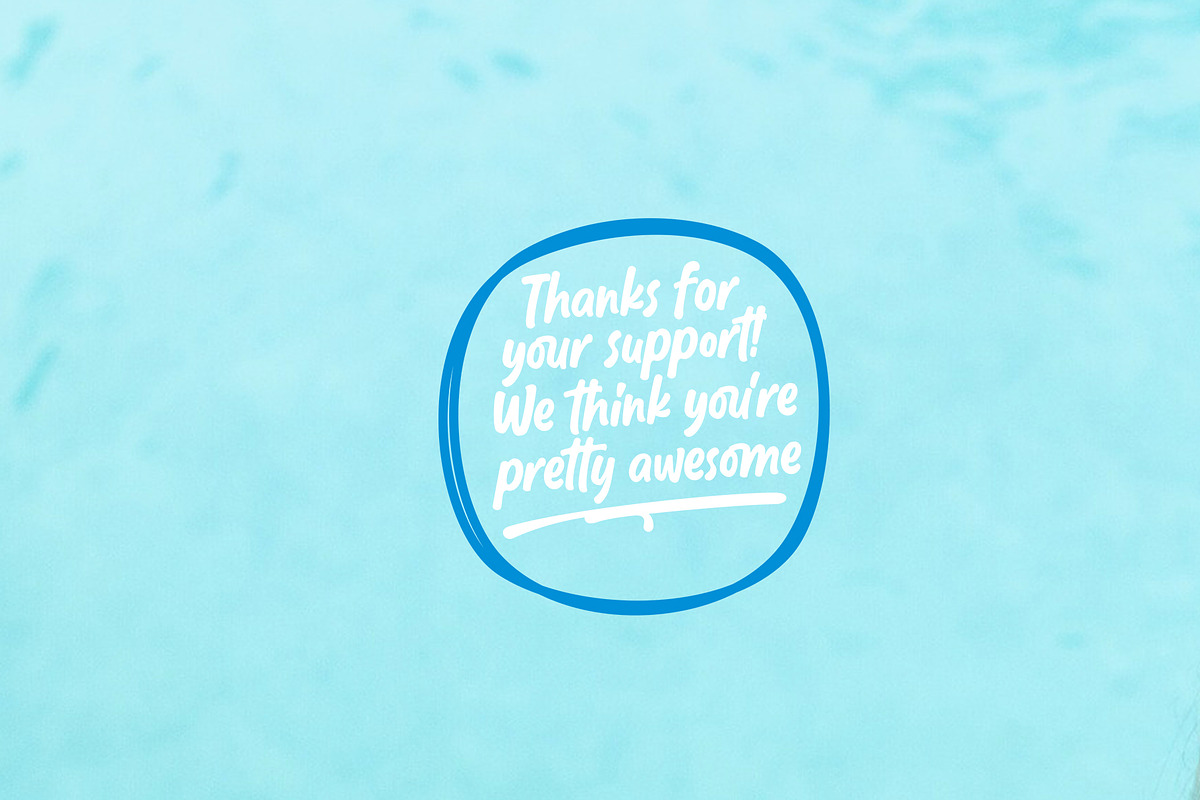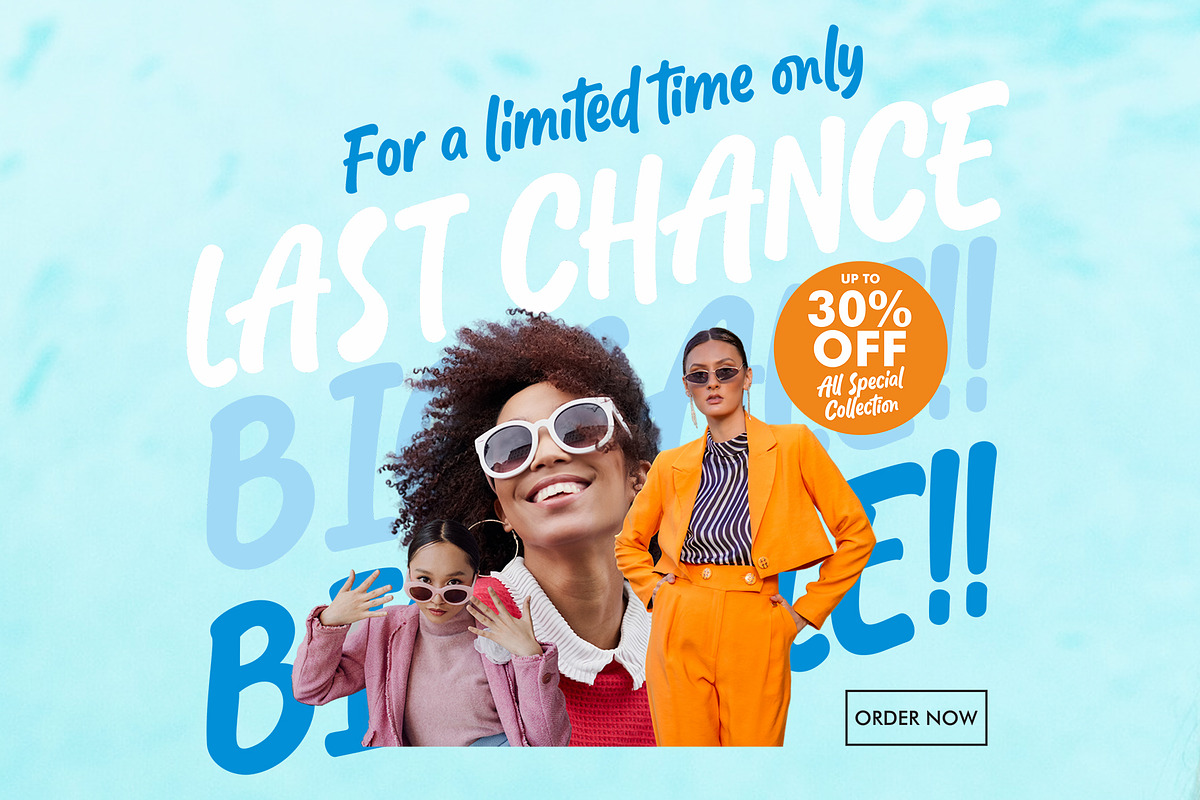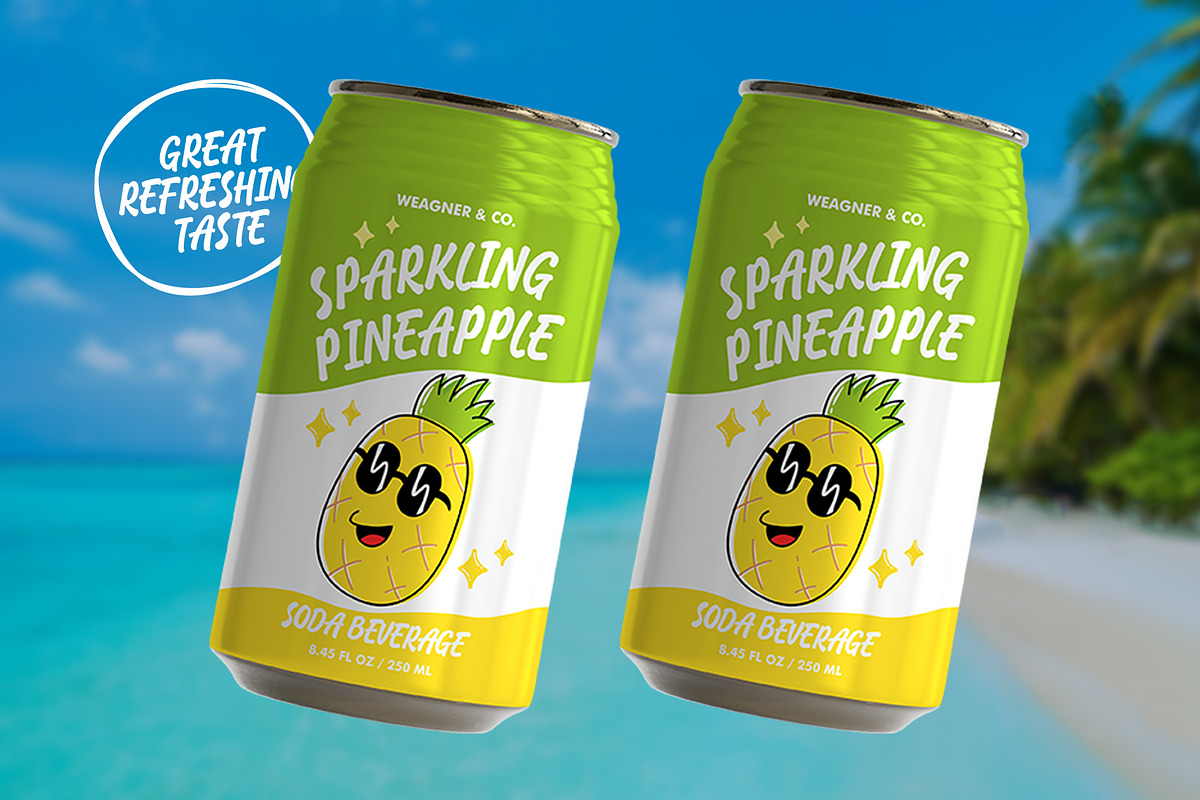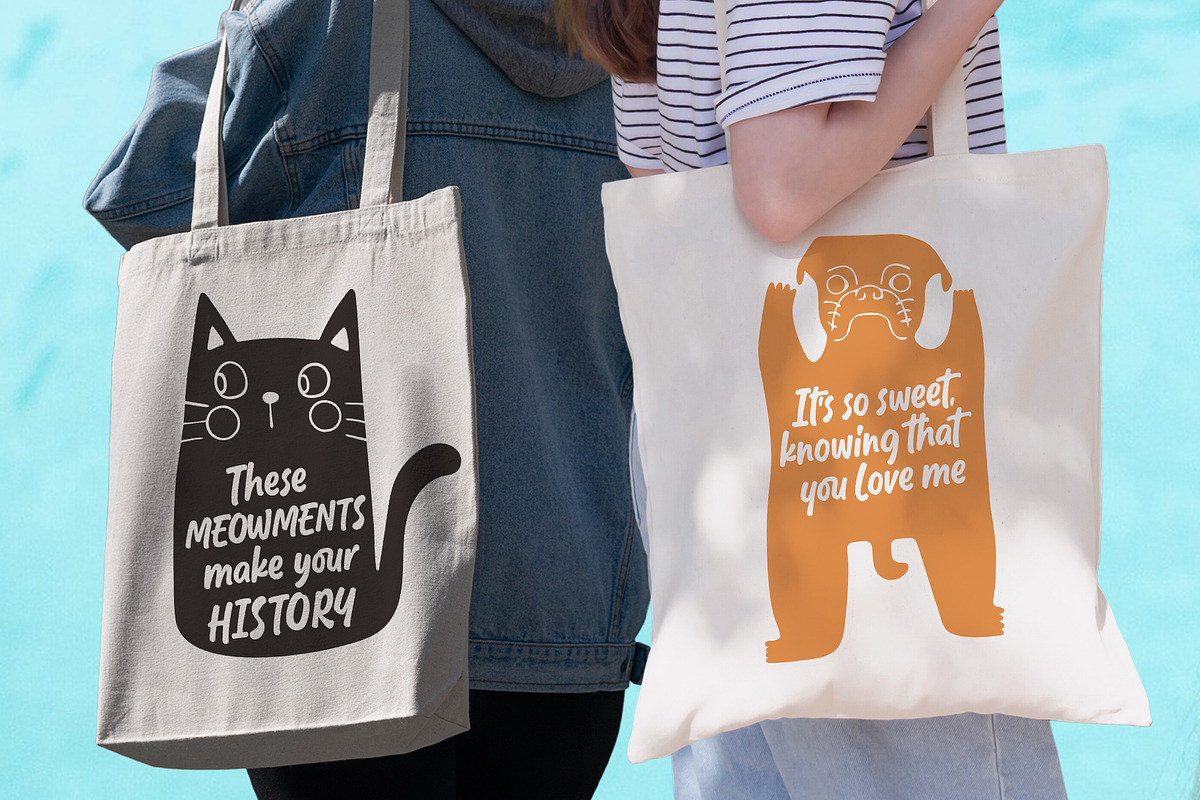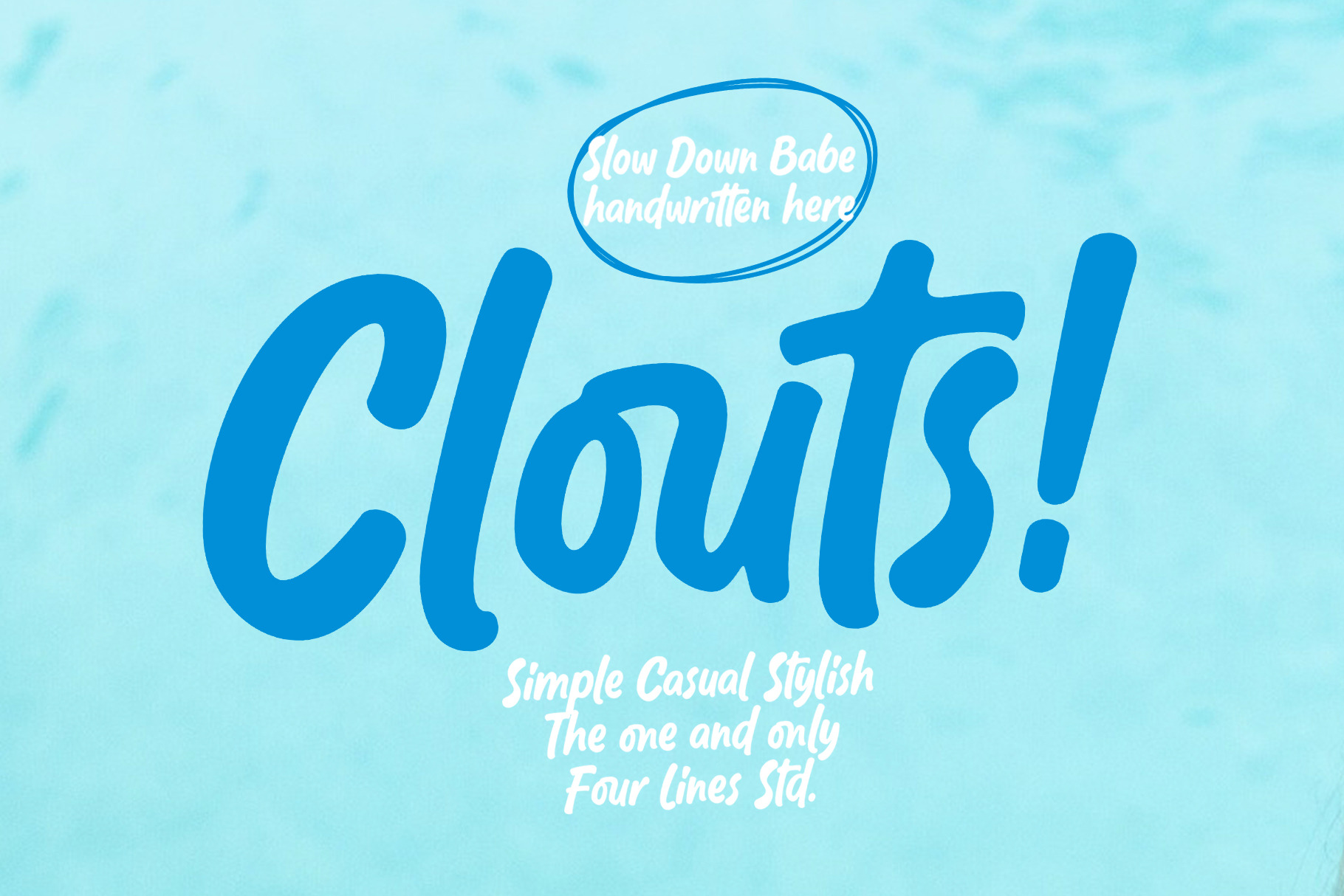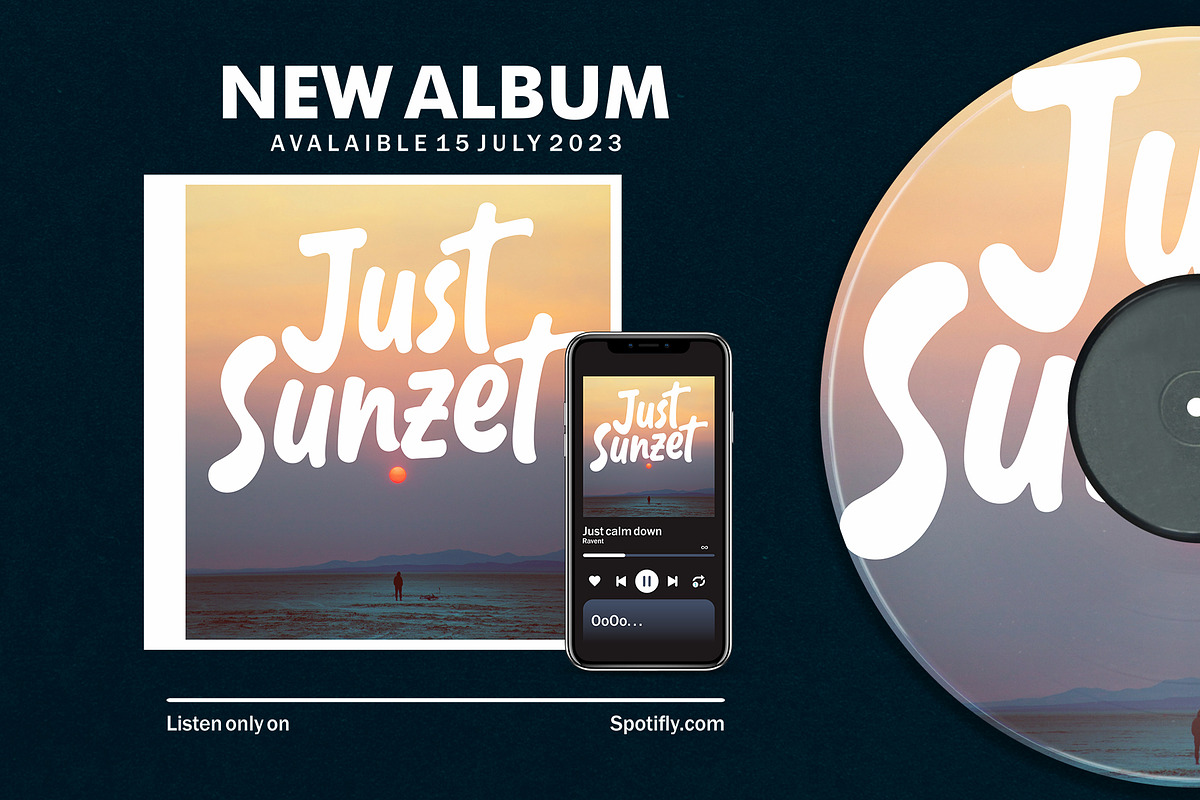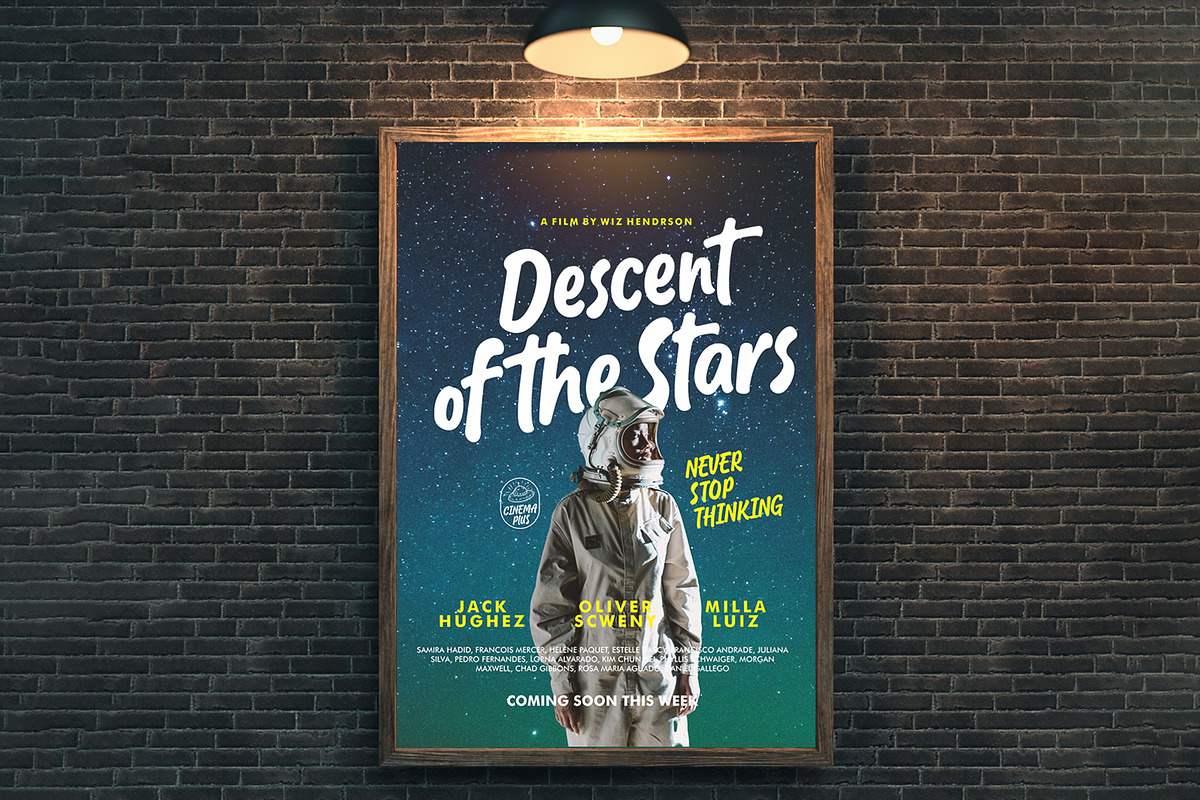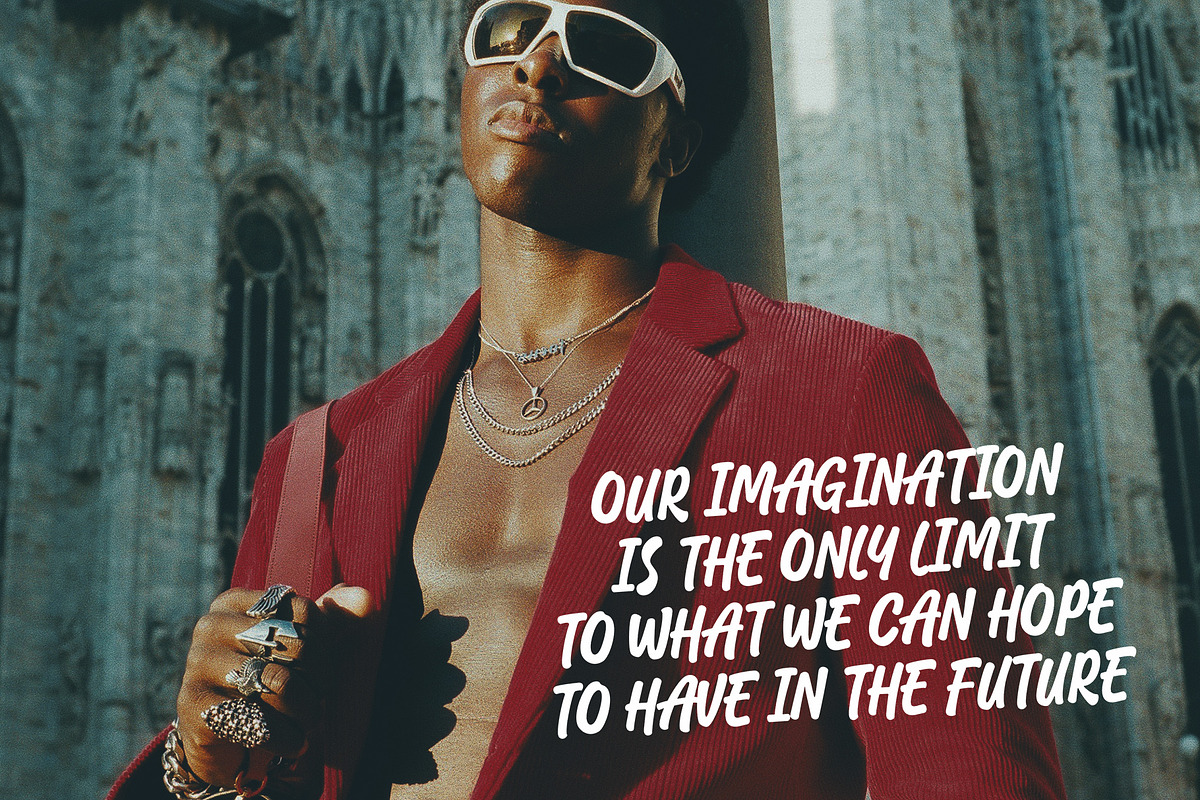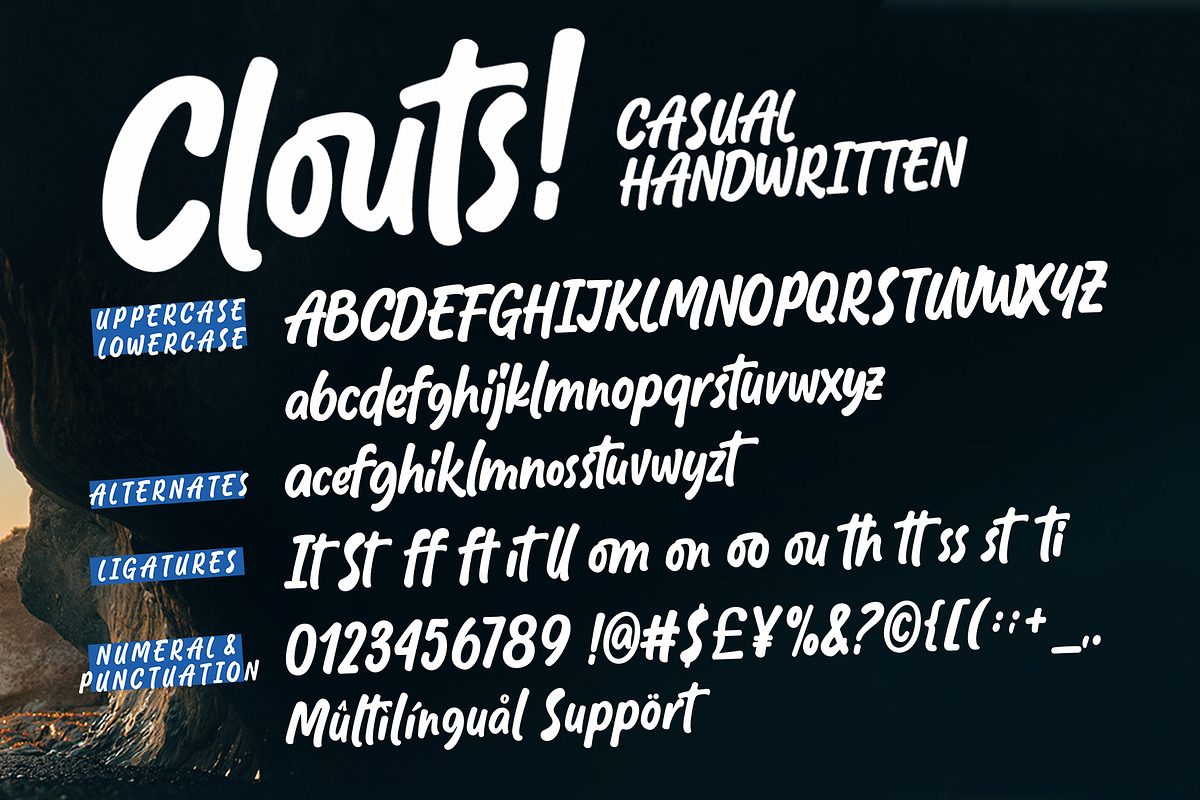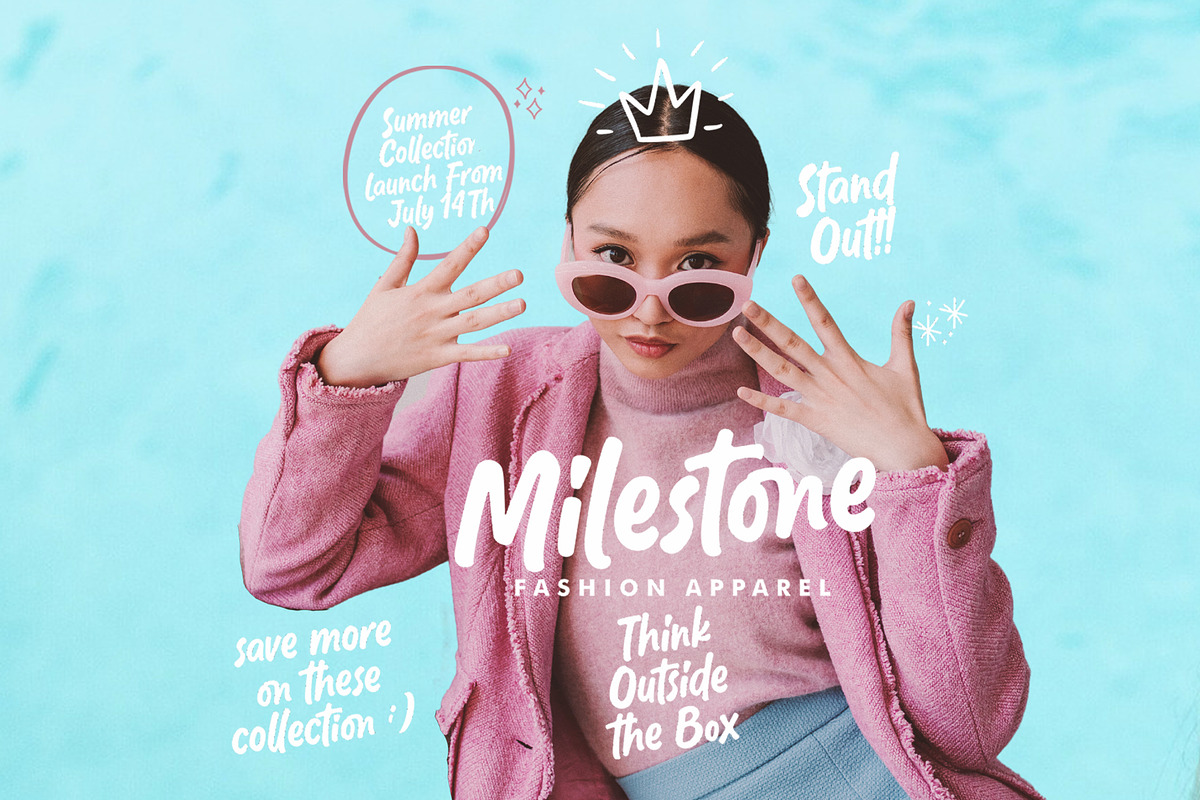
Clouts! - Casual Handwritten Font
The charming imperfections and subtle variations make each character unique, breathing life into your text and giving it a truly human touch.
Whether you're designing captivating ad campaigns, eye-catching posters, or stunning social media graphics, Inkstream is the perfect companion. It effortlessly adapts to any creative concept, elevating your message and giving it a distinctive touch that sets you apart from the crowd.